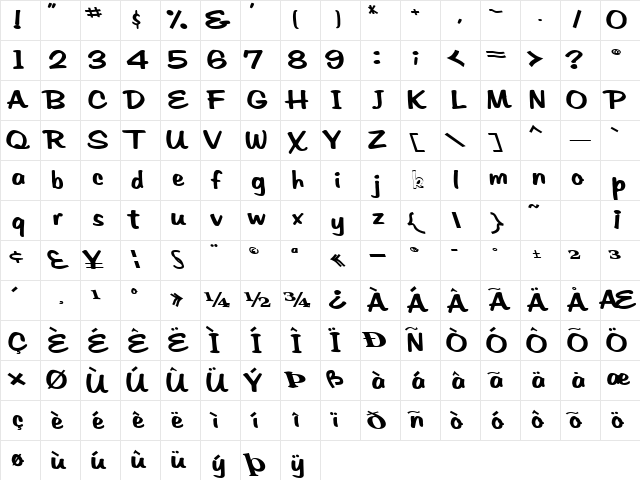
YankeeFan Bold
YankeeFan Family
Design Context for YankeeFan
YankeeFan is a composed and adaptable typeface that performs quietly and consistently across a wide range of design contexts. Its bold stroke weight gives it real presence on the page.